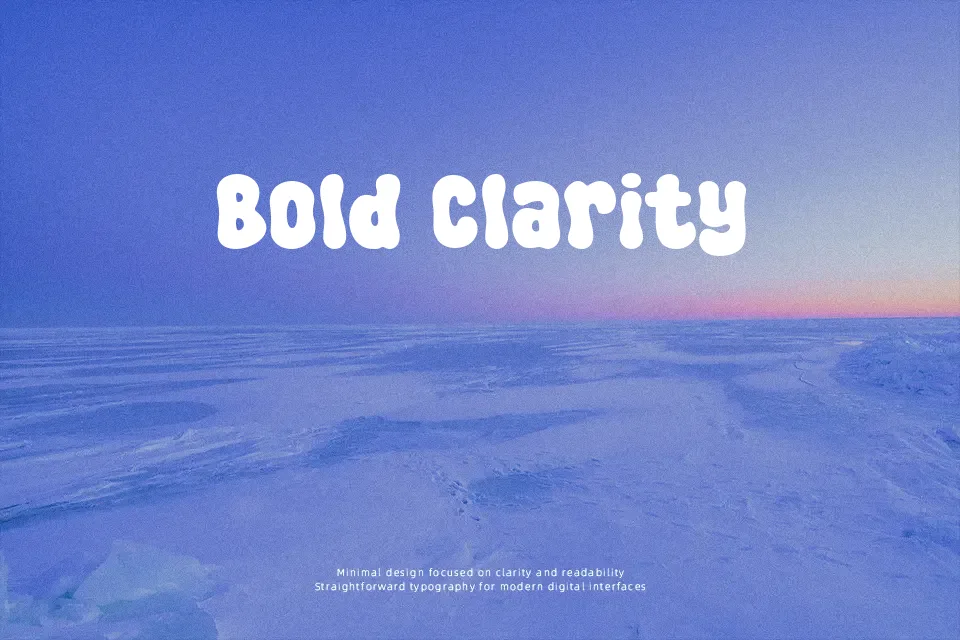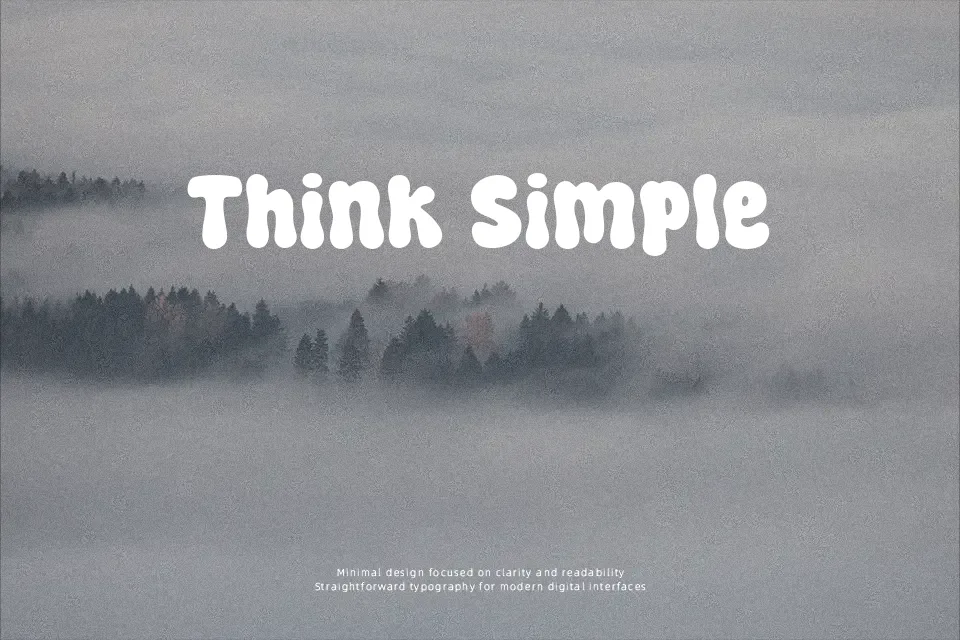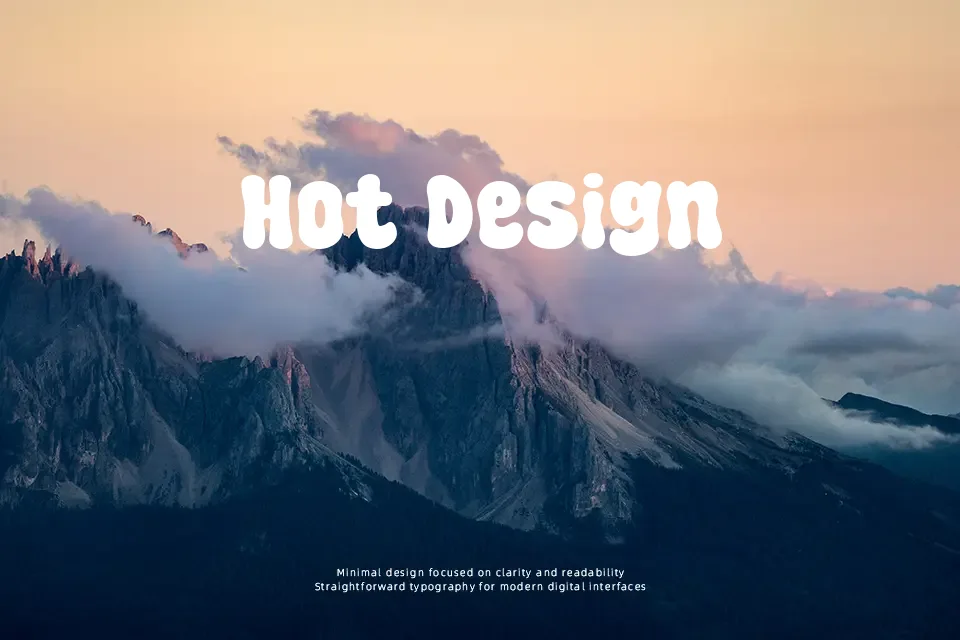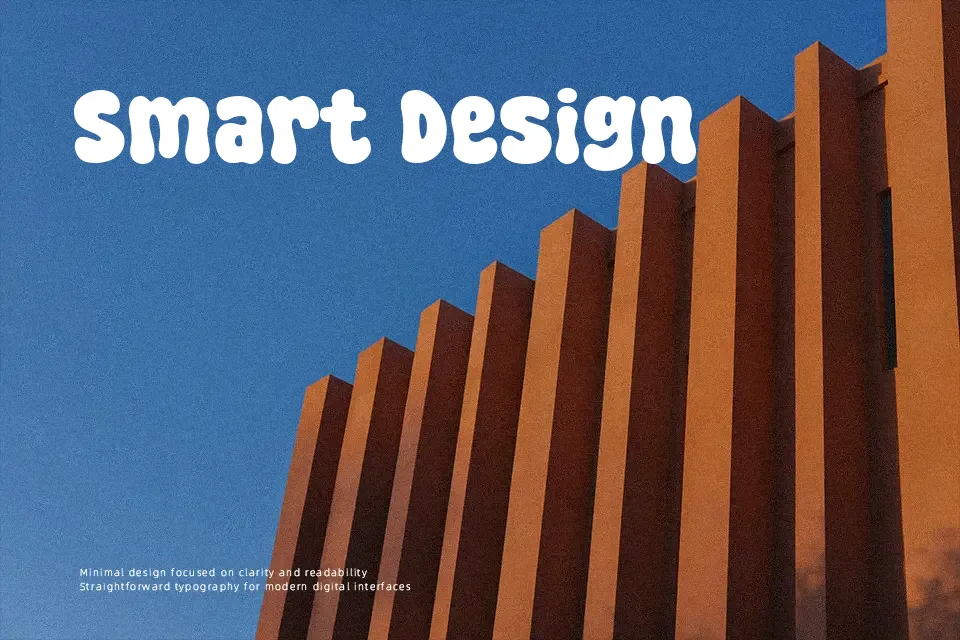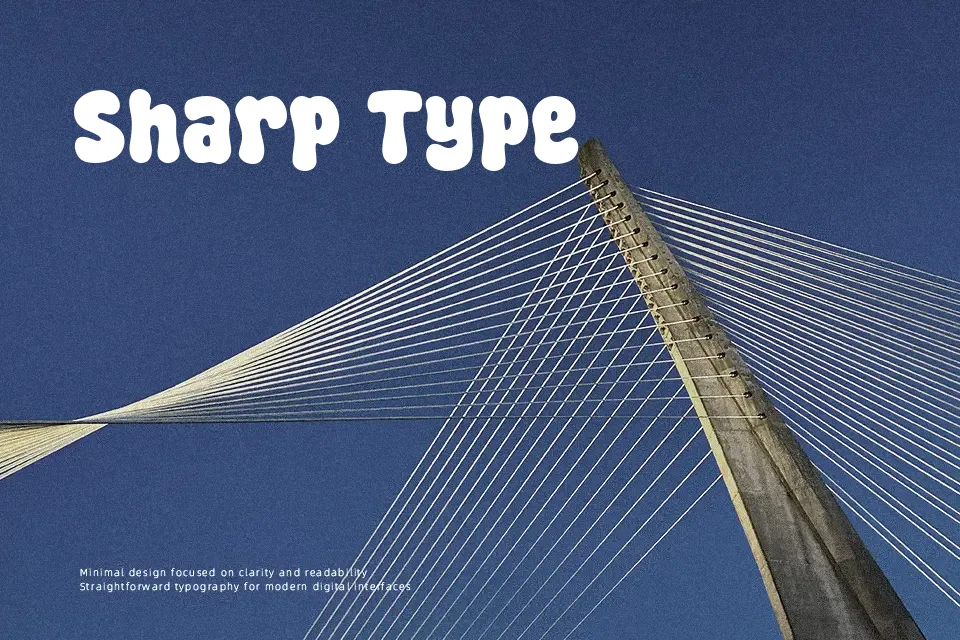
Super Fashion Font
Designed by fsuarez913
Super Fashion Font presents an ultra-heavy display structure defined by pillowy silhouettes, softened outer corners, and minimal internal counters. The letterforms maintain consistent, uniform stroke thickness with low contrast, creating a bold rhythm across closely spaced glyphs. Generous x-height proportions and exaggerated curves provide strong graphic presence, making the typeface exceptionally effective for music festival flyers, casual apparel graphics, and packaging labels. However, the dense weight significantly reduces legibility when scaled down to small sizes, making the design unsuitable for extended reading. In practical use, the tight spacing helps preserve visual cohesion across compact, high-impact headline compositions.
– retro apparel graphics
– music festival flyers
– product packaging labels
– vintage logo badges
– long paragraph text
– mobile interface body copy
– formal legal documentation
– dense editorial spreadsheets
Perfect for fashion, headline, and logo, with a bold and decorative style.